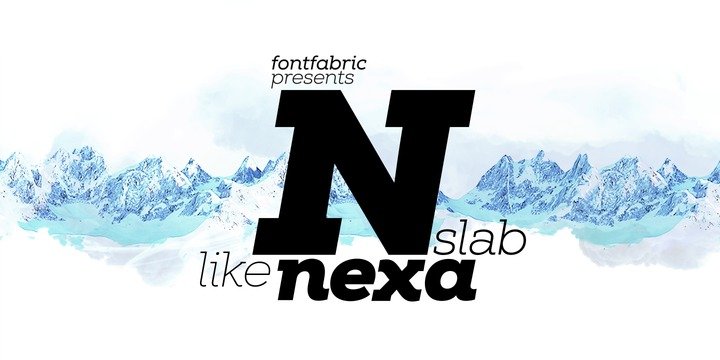
Nexa Slab
Nexa Slab is a geometric slab serif font whose design is based on the already popular best-seller Nexa. The font family contains 3 basic forms: italics, obliques and uprights, each of which has 8 different weights.
This visual richness makes it the ideal slab serif font family for the web as well as for print, for motion graphics, logos, t-shirts and so on. It is also great for headings, fitting nicely with both small and large typesetting text blocks.